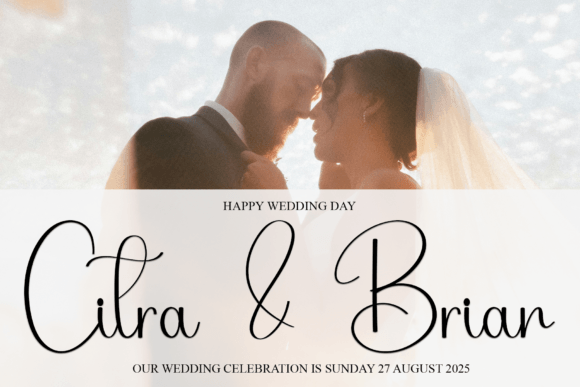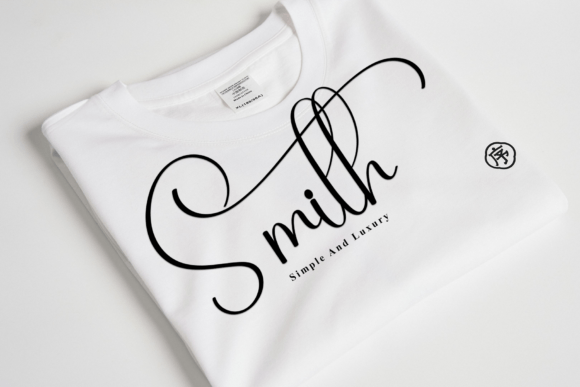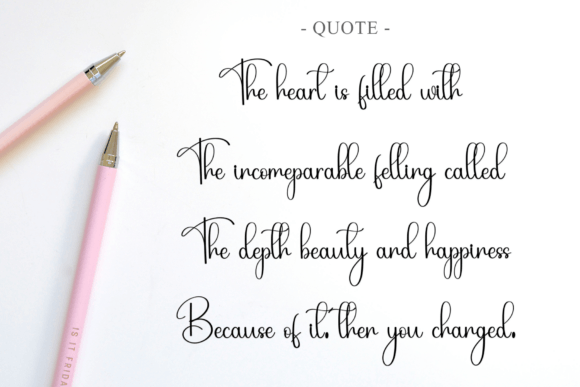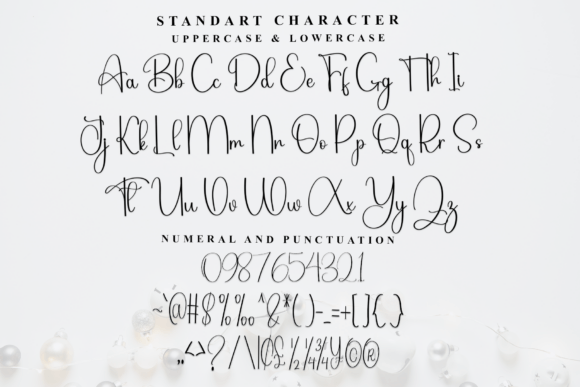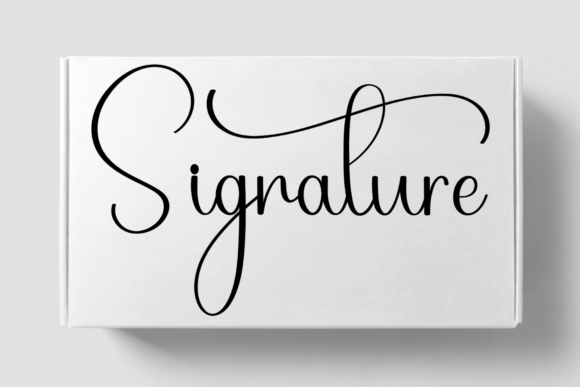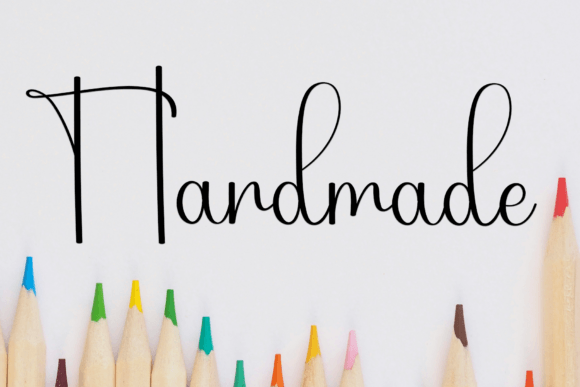
The Birth of a Beautiful Idea
As a designer, you’ve been there – staring at a blank canvas, waiting for the perfect spark to ignite your creativity. Maybe it was a chance conversation, a walk in the park, or a burst of inspiration from a favorite book. Whatever it was, it set your imagination ablaze, and suddenly, the possibilities seemed endless. For me, that spark came in the form of the Brightness Font, a stunning handwritten script that has been the catalyst for some of my most exciting projects yet.
Brightness Font is more than just a pretty face – it’s a versatile tool that can elevate your branding, advertising, and design work to new heights. From book covers to album art, and from magazine layouts to website headers, this beautiful font is the perfect addition to any designer’s toolkit. And the best part? It’s designed to shine, making it a valuable asset for anyone looking to add a touch of elegance and sophistication to their creative endeavors.
Brightness Font Key Features
- Unique Characteristic: Brightness Font features a unique, high-contrast design that makes it easily readable in low-light environments.
Brightness Font Review
Overall, I’m quite impressed with the Brightness Font, but like any other font, it’s not perfect. Let’s dive into what works well and what doesn’t.
- The font is highly legible, even at small sizes. It’s perfect for body text and titles.
- The font’s high contrast makes it ideal for headings and titles, where it grabs attention.
- It’s highly versatile and can be used for a wide range of design projects, from corporate to creative.
- The font can feel a bit too bold at times, which may not be suitable for all design projects.
- It lacks a strong emotional connection, which may make it feel less engaging for some users.
- The font’s high contrast can make it difficult to read in low-light environments.
The Brightness Font is a solid choice for designers looking for a clean, modern font. While it has its limitations, it’s a versatile and highly legible font that can elevate any design project. With a bit of creativity and experimentation, designers can get the most out of this font and create stunning designs.
Alternatives to Brightness Font for Designers
1. Museo Font
Museo Font is a modern sans-serif font designed by Jos Buivenga. It’s suitable for various design projects, including logos, headings, and body text. Museo Font is more elegant and refined compared to Brightness Font, with a focus on legibility and readability.
Lato Font is a sans-serif typeface designed by Łukasz Dziedzic. It’s a popular choice for digital design projects, including web and mobile applications. Lato Font is more versatile and adaptable than Brightness Font, with multiple weights and styles available.
Open Sans Font is a sans-serif typeface designed by Steve Matteson. It’s a clean and modern font that’s widely used in digital design projects, including web and mobile applications. Open Sans Font is more legible and readable than Brightness Font, with a focus on clear typography.
4. Montserrat Font
Montserrat Font is a sans-serif typeface designed by Julieta Ulanovsky. It’s a geometric font that’s inspired by the urban environment of Buenos Aires. Montserrat Font is more modern and edgy compared to Brightness Font, with a focus on bold typography and strong contrast.
Embracing Brightness: Creative Project Ideas
Project 1: Radiant Quote Wall